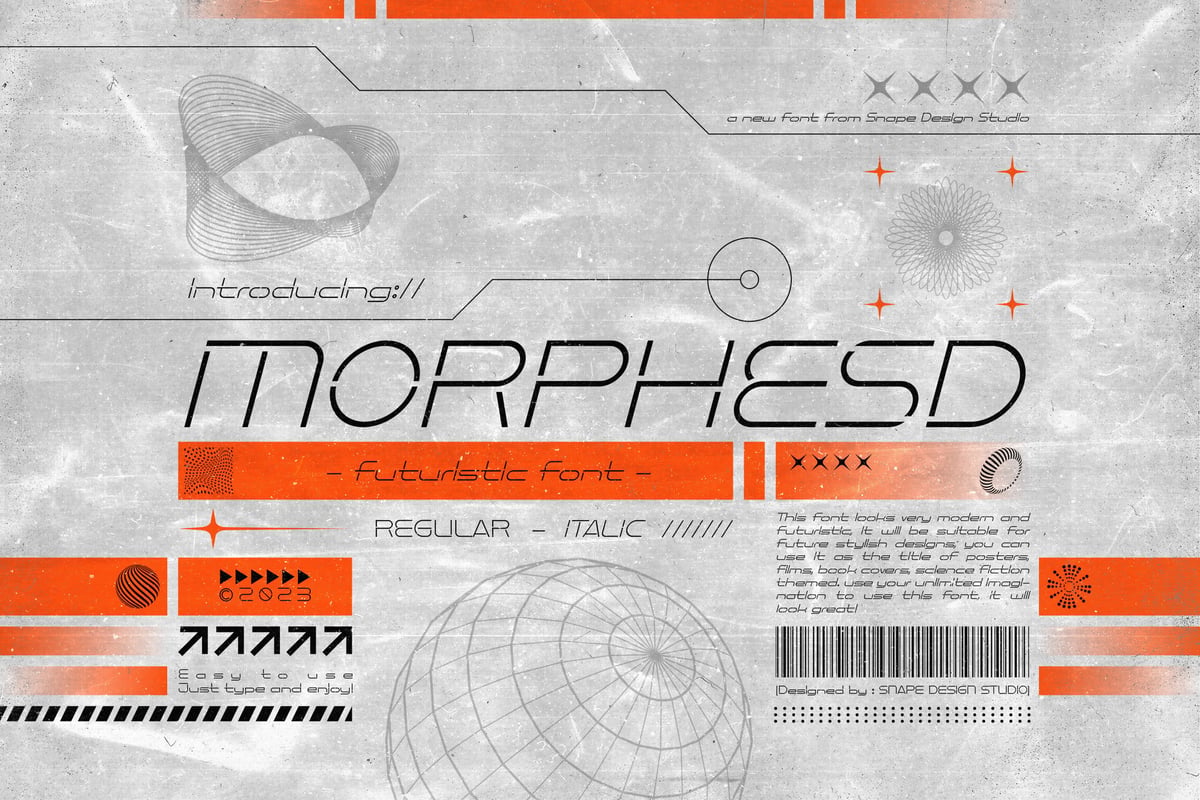
Morphesd - Futuristic Font
Transform your designs with cutting-edge futuristic typography that seamlessly blends technology and artistry. This innovative font collection redefines modern design with sleek, dynamic, and visually striking characters. Perfect for sci-fi themes, tech branding, or any project demanding a contemporary edge, these versatile fonts empower creativity with user-friendly customization options. FEATURES: • Uppercase • Lowercase • Numbers • Punctuation • Multilingual support FAMILY FONT: • Regular • I...